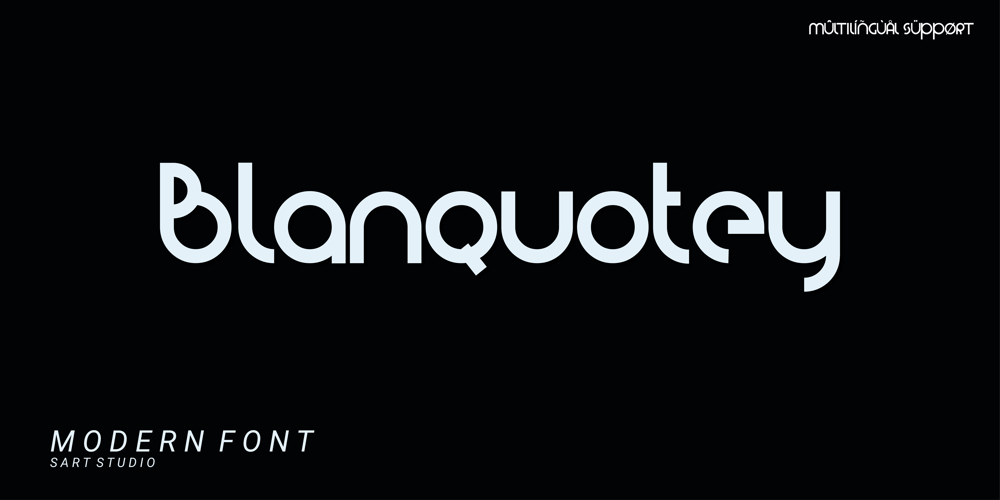
Blanquotey Font Family was designed by Sartstudio and published by Sartstudio. Blanquotey contains 1 styles and family package options. Blanquotey is a simple and modern font. Whether it�s for web, print, moving images or anything else � Blanquotey will look spectacular.This font is very suitable for the needs of branding, logos, technology themes and others. very easy to use and can be installed on any graphics software such as Adobe illustrator, photoshop, Microsoft Office and others.Works on PC & MacSimple installationCan be accessed in Adobe Illustrator, Adobe Photoshop, Adobe InDesign, and even works in Microsoft Word.Long-term support,Can be accessed completely without additional design software.